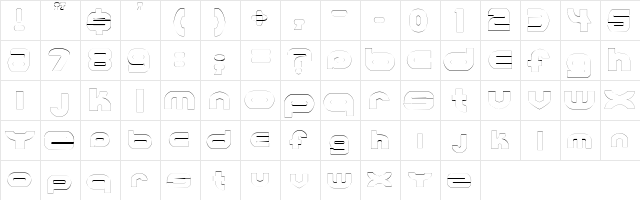
MKUltraOutline Regular Font Preview
MKUltraOutline Regular
Design Context for MKUltraOutline Typeface
MKUltraOutline is built around its visual character rather than neutral utility — its distinctive forms are designed to make an impression at display sizes.
Font Pairing: Pair with a clean neutral sans-serif for body copy to let MKUltraOutline's character lead without overwhelming the composition.
Pro Tip: Use MKUltraOutline exclusively at display sizes — it was designed to be seen, not read at length. Let a neutral companion handle body copy.